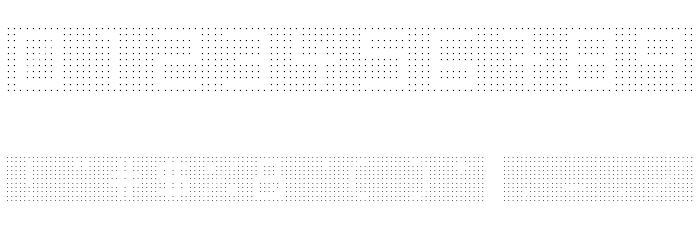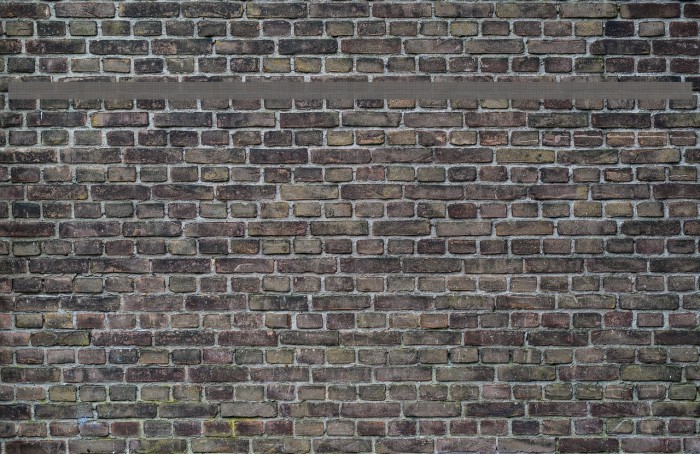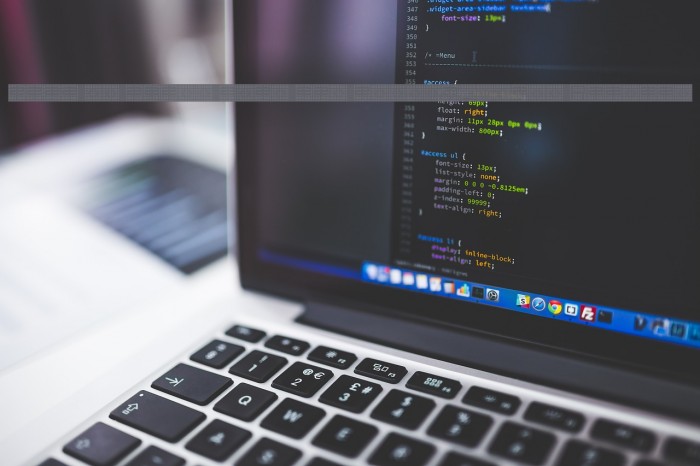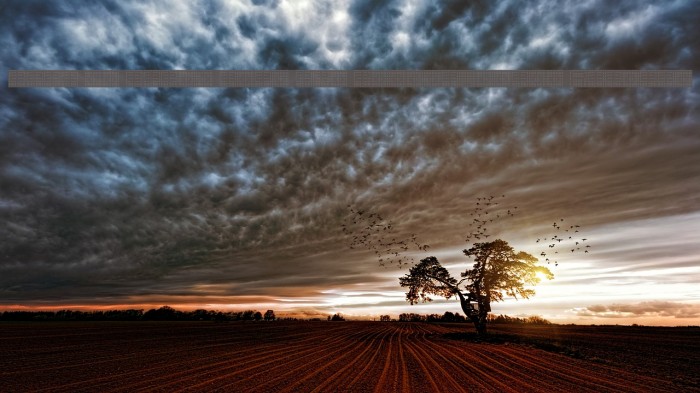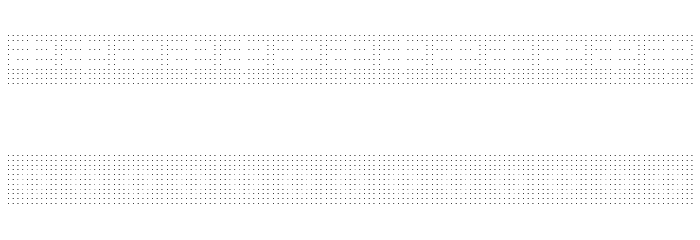
This font features a unique dotted pattern that forms each character, creating a distinct and modern digital aesthetic. The characters are composed entirely of small, evenly spaced dots, giving it a pixelated appearance reminiscent of early digital displays or dot matrix printers. This design choice results in a highly decorative and eye-catching style that stands out in any context. The font maintains a consistent structure across all characters, ensuring readability while emphasizing its playful and innovative design. The uniformity of the dots provides a cohesive look, making it suitable for creative and tech-oriented projects.
A modern, dotted font with a digital, pixelated style.
• Proposed Projects: Ideal for digital art projects, tech-themed designs, posters, and creative branding.
• Category: Decorative/Display
• Overall Style: Modern
• Use Case: Headlines, Logos